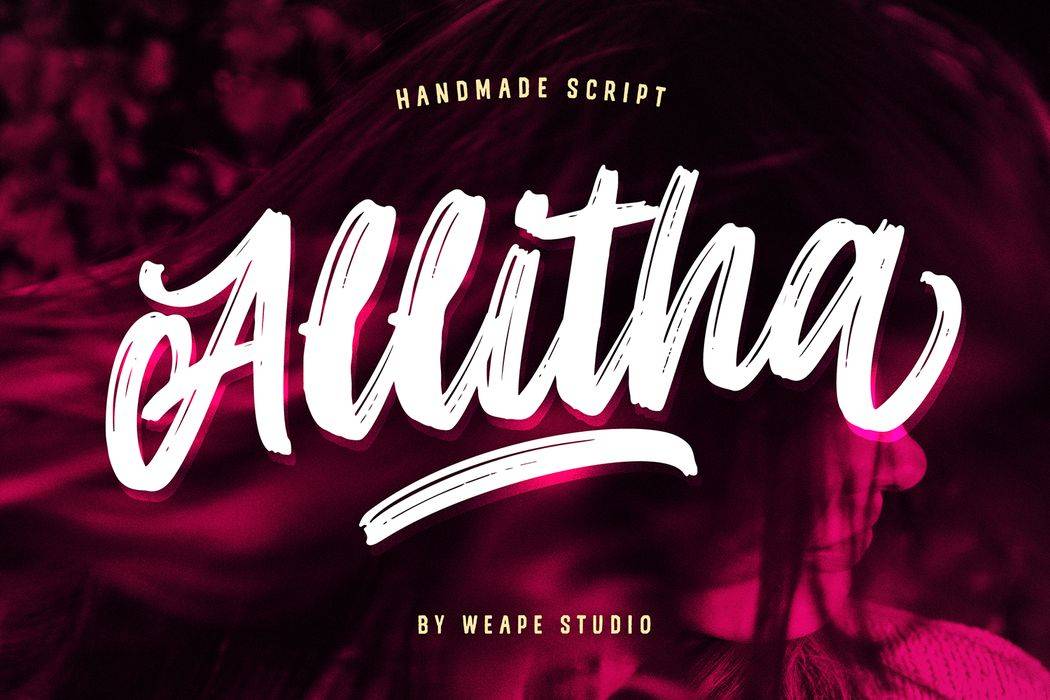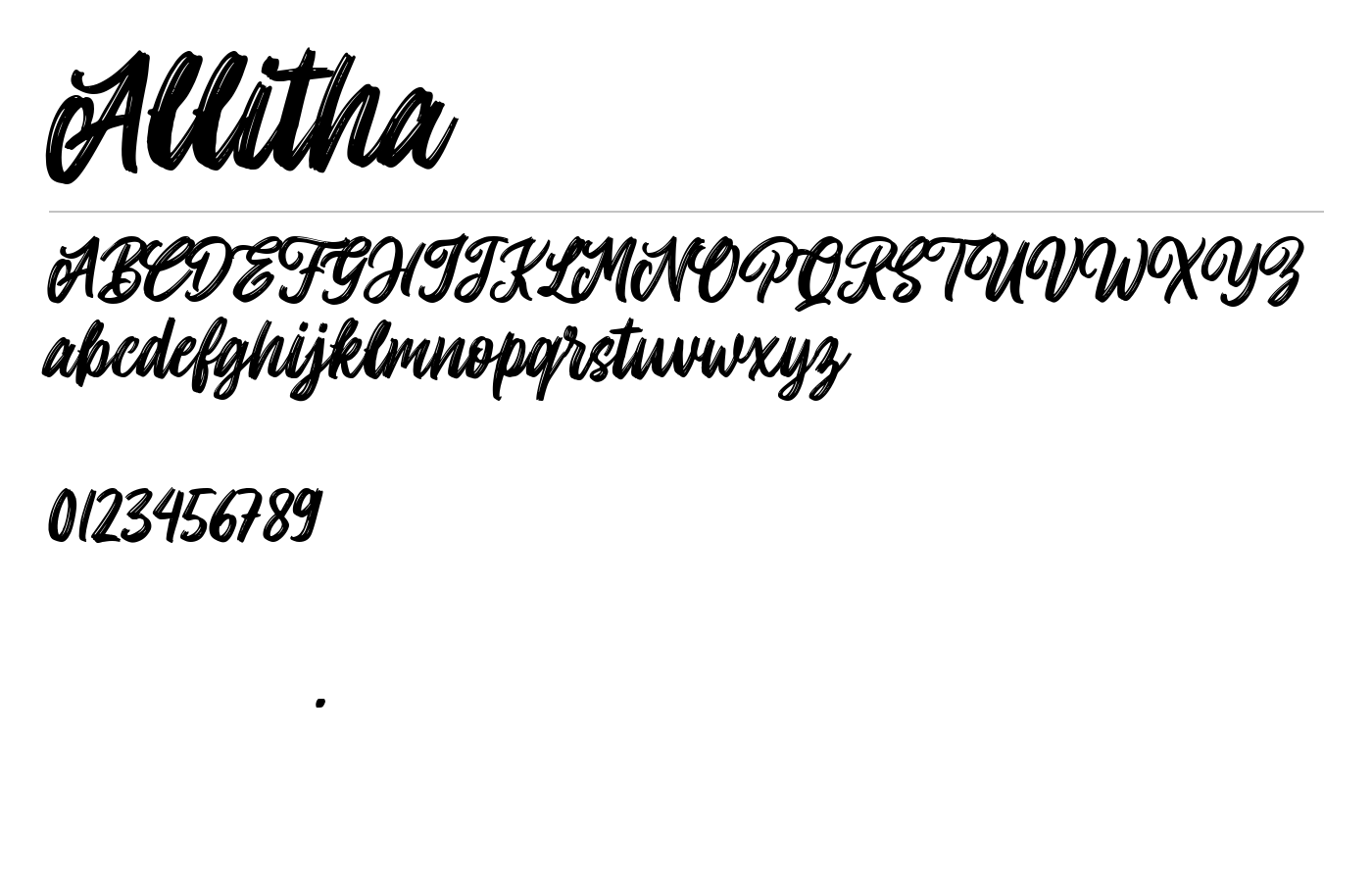
Allitha is a bold, handwritten script font with a lively and artistic flair, featuring fluid, brush-like strokes that give it an energetic and personal touch. Its high contrast and expressive letterforms make it perfect for creative branding, logos, and headlines that need an eye-catching, approachable style. This font works well in designs that seek to convey warmth, creativity, and a sense of individuality.
Allitha Font
About Allitha Font
| Font family | Allitha Font |
| Designer | Weape Studio |